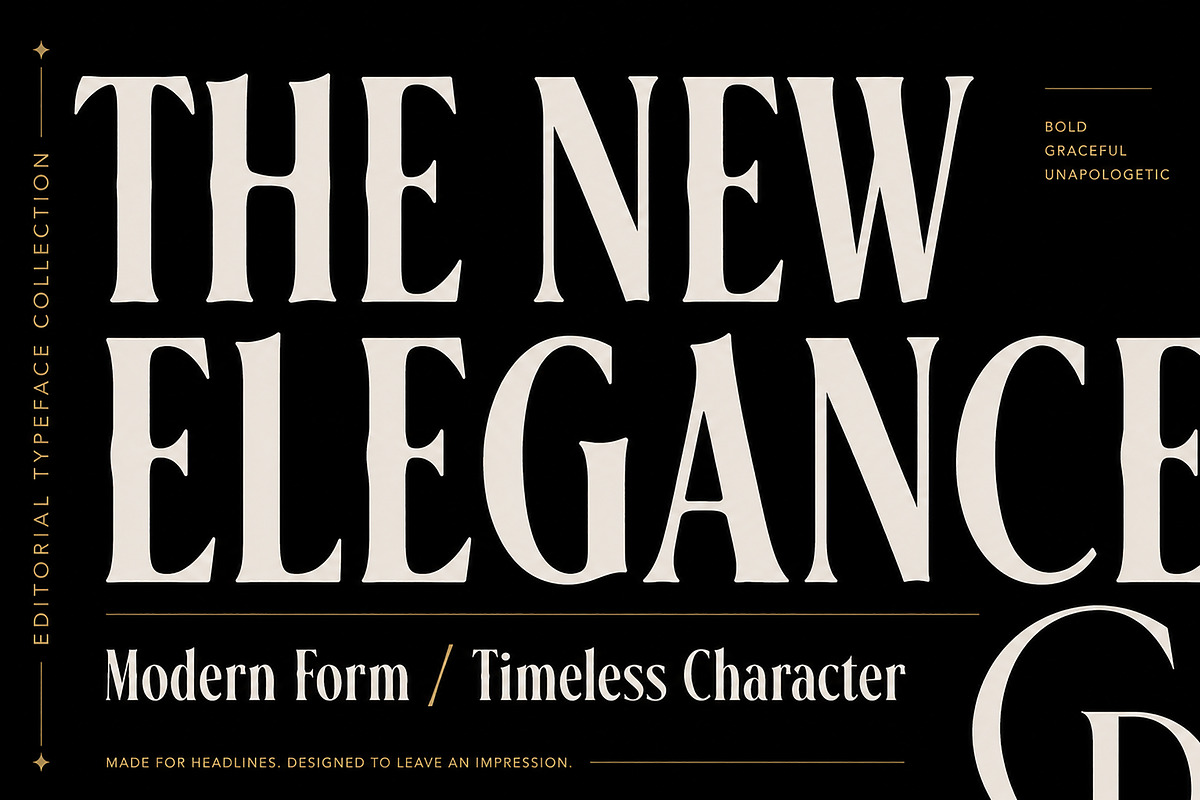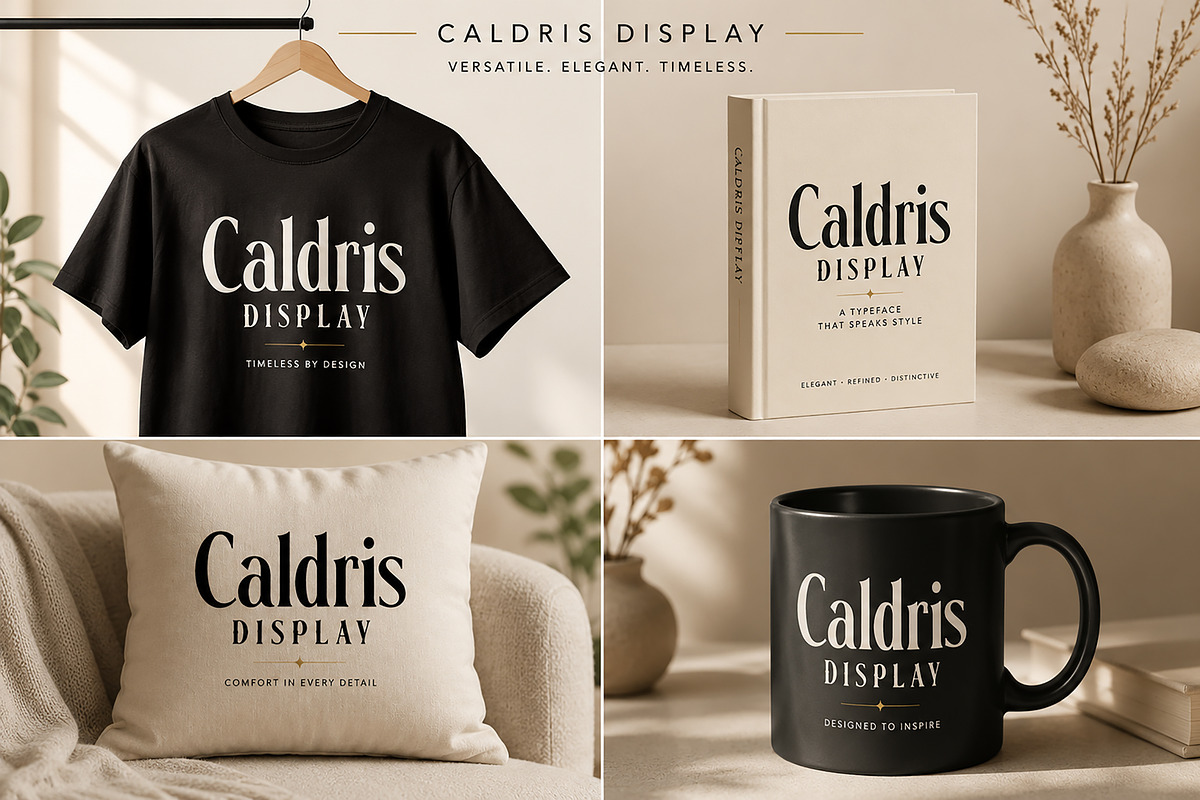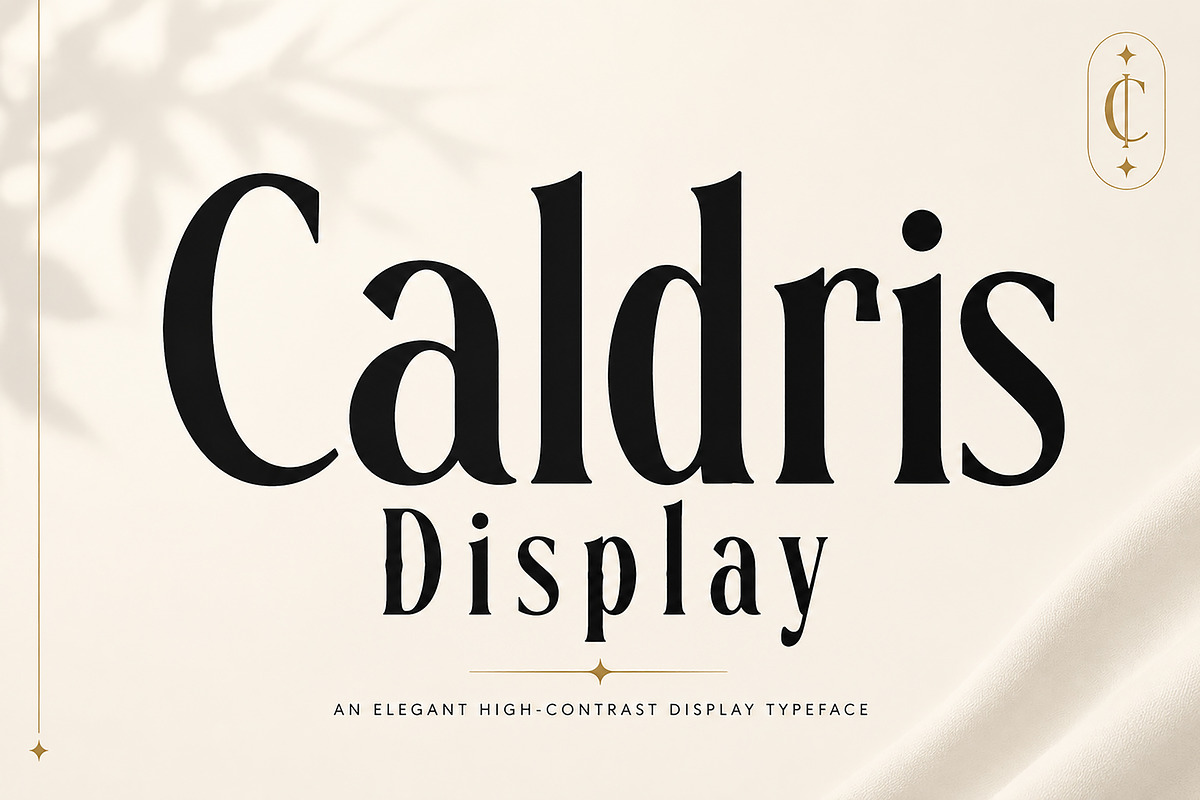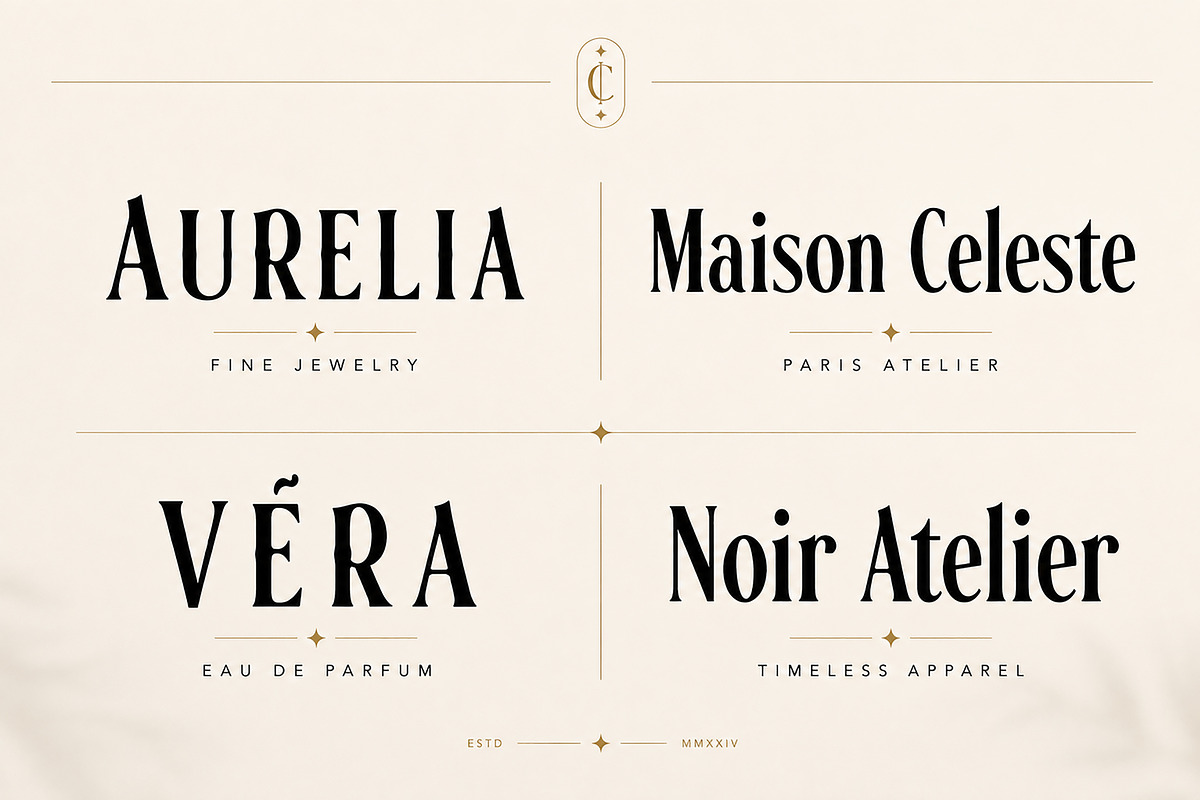
Caldris Display
Caldris Display – Elegant High Contrast Display Font
Caldris Display is an elegant display typeface created to bring a refined, sophisticated, and distinctive character to your designs. With its dramatic high-contrast letterforms, graceful curves, and stylish proportions, Caldris Display is designed to make headlines and branding feel instantly more premium.
Its bold yet elegant personality makes it especially suitable for luxury branding, fashion editorials, logos, magazine titles, packaging, book covers, posters, invitations, social media graphics, and sophisticated advertising designs.
Whether you're creating a modern fashion identity, an elegant beauty brand, a premium product package, or an eye-catching editorial headline, Caldris Display gives your typography a memorable and luxurious presence.
Logo & Brand Identity
Luxury Branding
Fashion & Editorial Design
Magazine Headlines
Book & Editorial Covers
Beauty & Cosmetic Branding
Perfume & Jewelry Branding
Posters & Advertising
Invitations & Stationery
T-Shirt & Merchandise Design
Boutique Branding
Creative Headlines & Titles
Elegant high-contrast display style
Distinctive and sophisticated letterforms
Strong editorial and luxury aesthetic
Designed for large headlines and statement typography
Suitable for both modern and timeless design concepts
Caldris Display is an excellent choice for designers looking for a distinctive display font that combines elegance, personality, and visual impact.